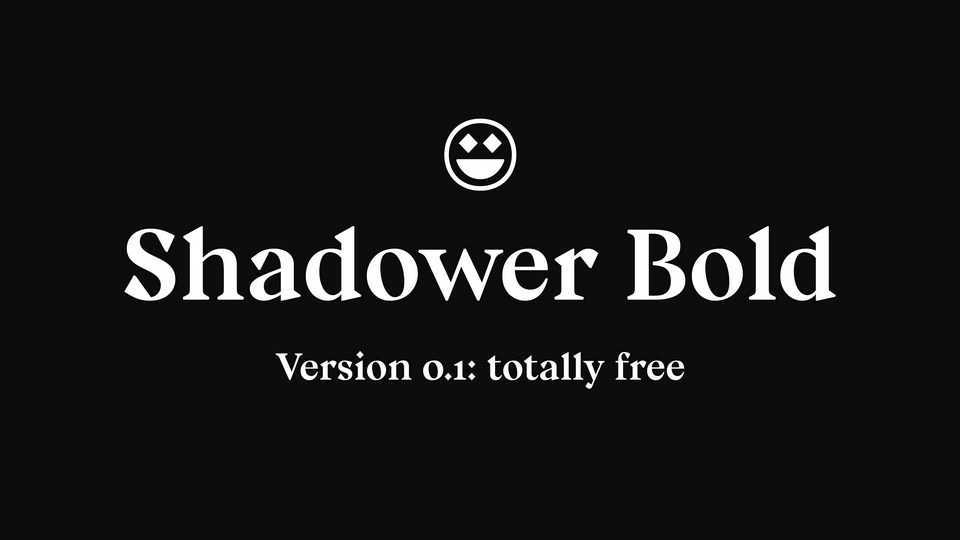
Shadower Font › Fontesk – Fonte Grátis
Shadower Font › Fontesk
Download Shadower font, a modern display serif typeface with triangular serifs, diamond dots and dynamic forms. Shadower will demand attention, making it perfect for titling, headlines, logotype, and branding projects
Designer: Igor Stepanchenko